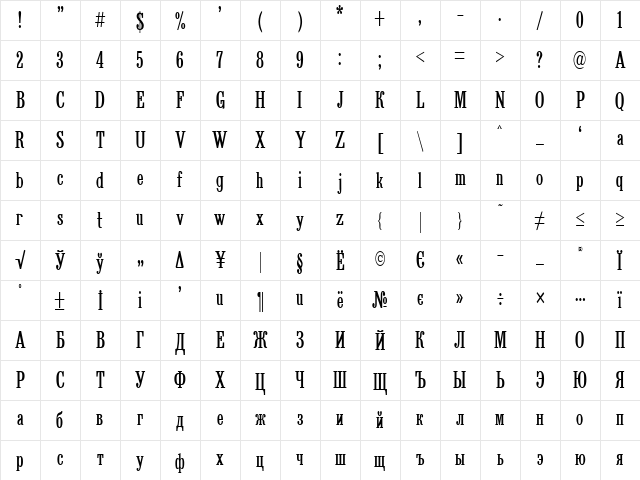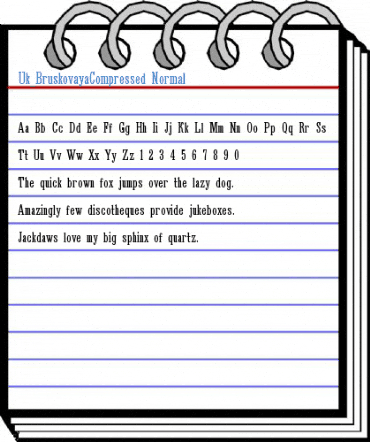
Uk_BruskovayaCompressed Normal
Style: Normal
Design Context for Uk_BruskovayaCompressed
Uk_BruskovayaCompressed is a composed and adaptable typeface that performs quietly and consistently across a wide range of design contexts.
Pro Tip: Use Uk_BruskovayaCompressed in both headline and body roles to test its range before committing to a single application.